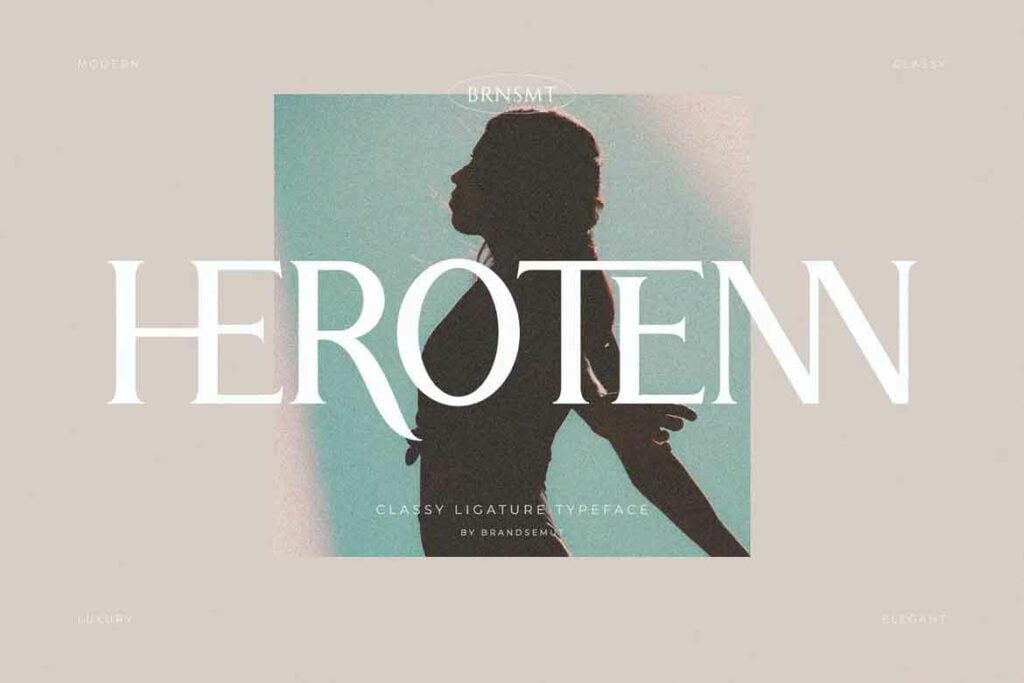
Herotenn Font
Herotenn is a cool, bold and thick lettered serif font. This font is PUA encoded which means you can access all of the glyphs and swashes with ease! Add it confidently to your favorite creations and let yourself be amazed by the outcome generated.
Herotenn Modern Serif Typeface